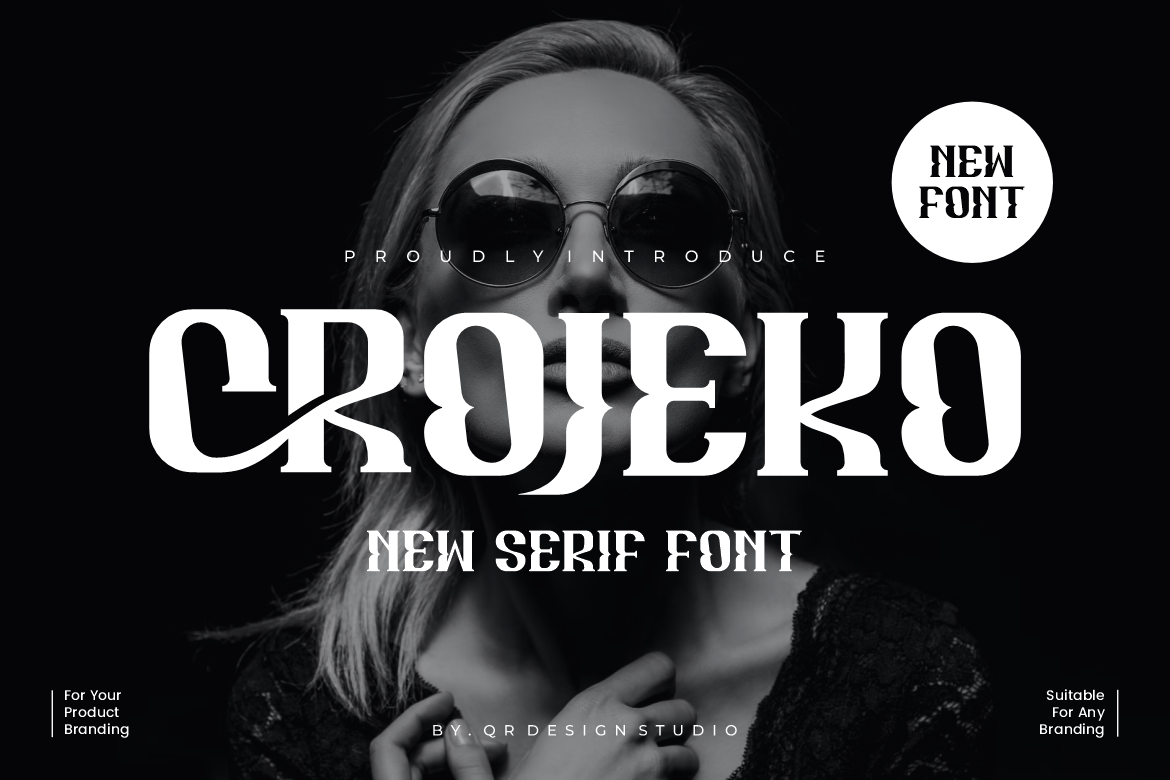
Crojeko - Medieval Serif Font
Crojeko - Medieval Serif Font is a bold and authentic display font. The font is suitable for any branding project like greeting card, poster, logo, sport, and many more. Outstanding in a wide range of contexts.